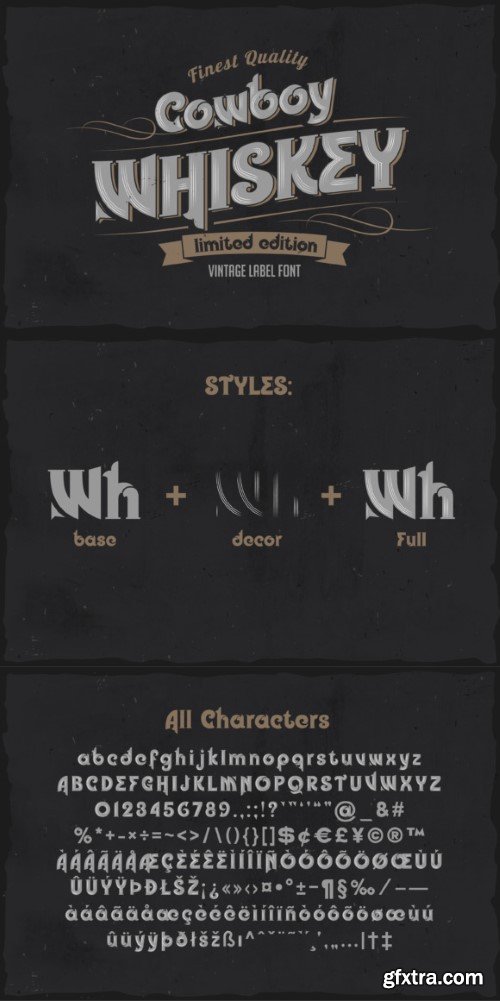
cowboy whiskey font
Cowboy Whiskey is a fashionable, retro-label layer display font that captures the rough appeal of the Wild West. With elaborate details and strong serifs, it’s ideal for making striking labels, posters, and signage with a nostalgic twist. Cowboy Whiskey brings a genuine feel to any vintage-inspired design project.